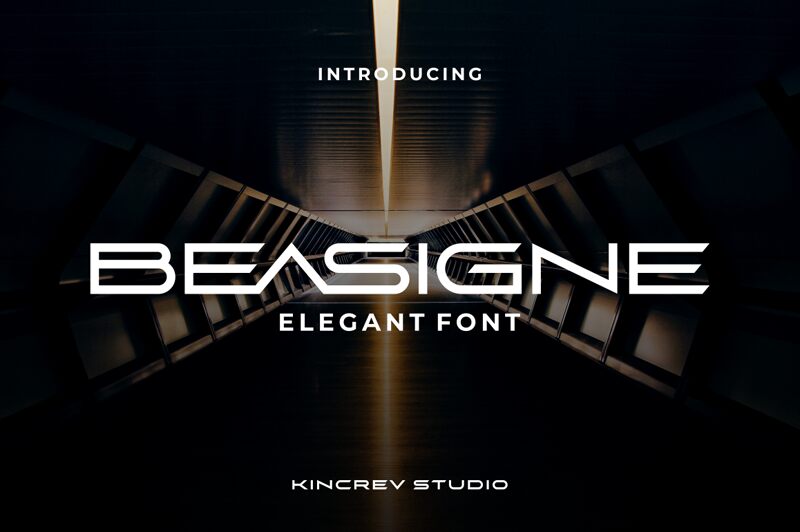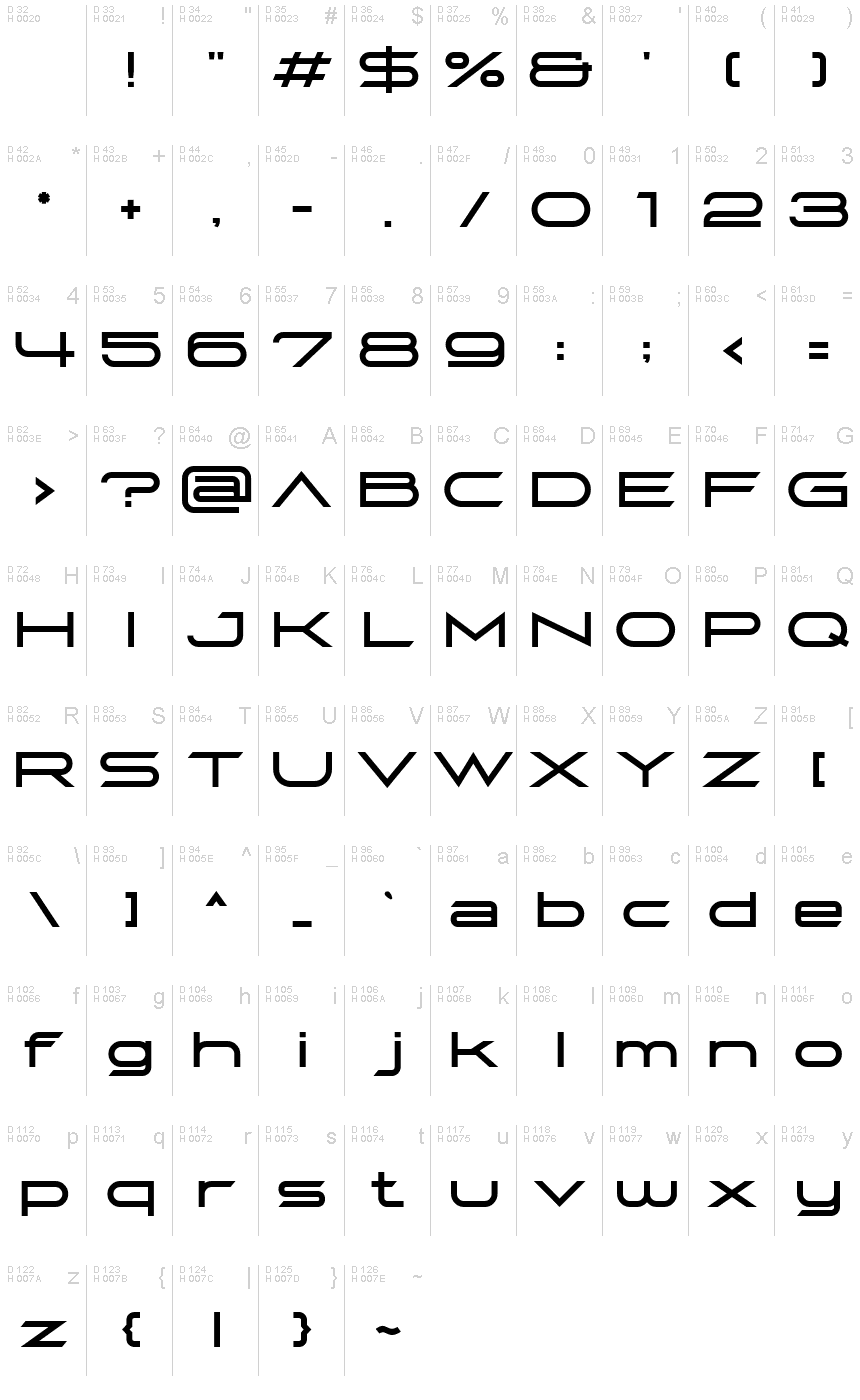
BEASIGNE
Beasigne, a futuristic display font designed by Kincrev Studio, pushes the boundaries of typography with its ultra-expanded width. Its sleek and innovative design makes it a perfect choice for projects that aim to convey a sense of modernity and innovation.
Embrace the boldness of Beasigne in your technology-focused websites, sci-fi book covers, or cutting-edge branding materials. With its distinct style and unique width, Beasigne is sure to captivate and engage your audience, giving your projects a futuristic touch that sets them apart from the crowd.